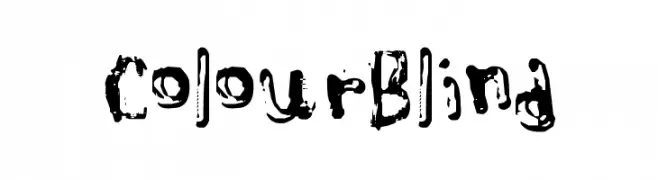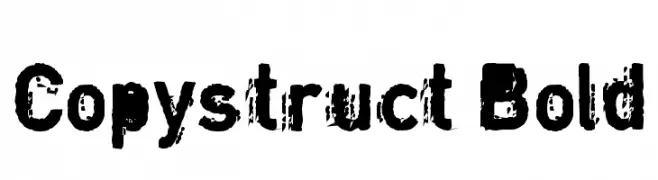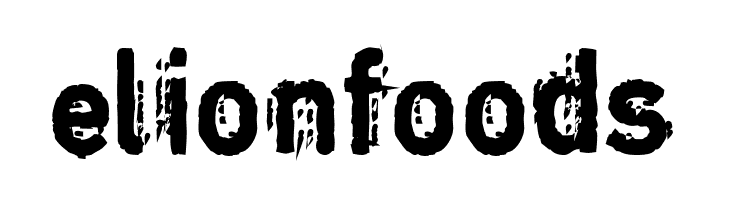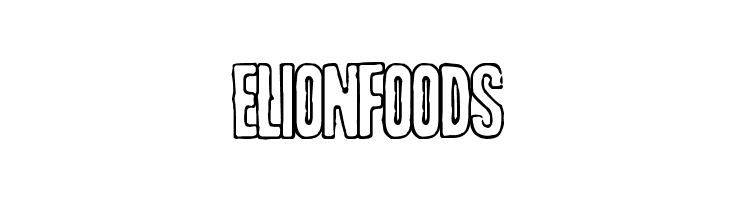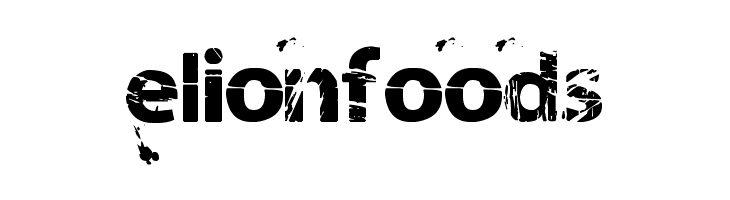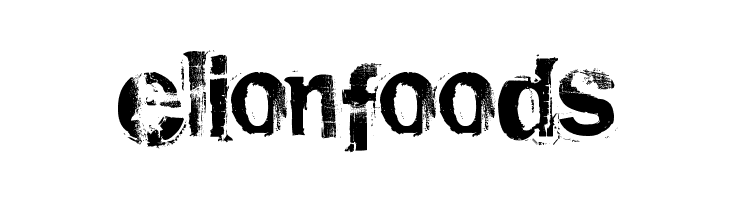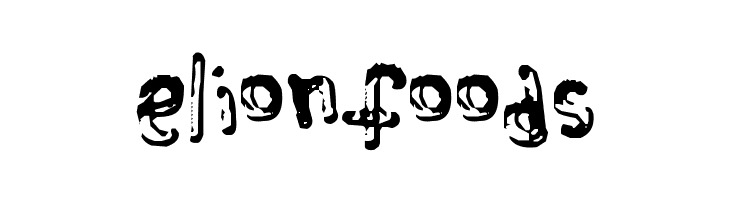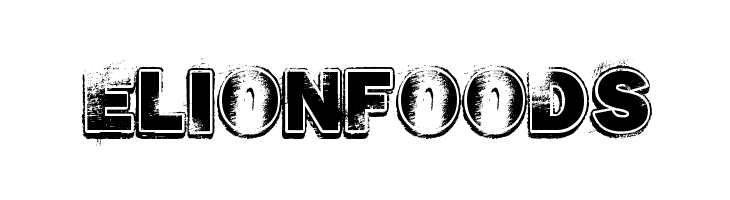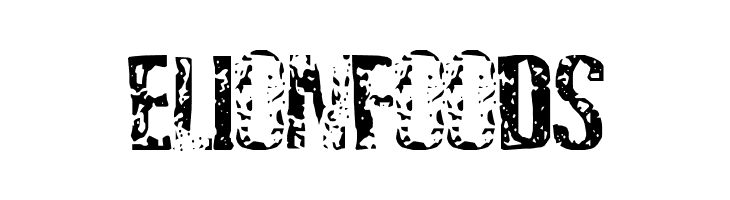
A bold, textured font with a vintage, distressed appearance.
A bold, distressed font with a vintage, grunge texture.
A distressed, grunge-style font with a textured, weathered appearance.
A distressed, grungy font with bold, textured characters.
A bold, distressed font with a rugged, textured appearance.
A bold, distressed font with a grunge aesthetic, perfect for edgy designs.